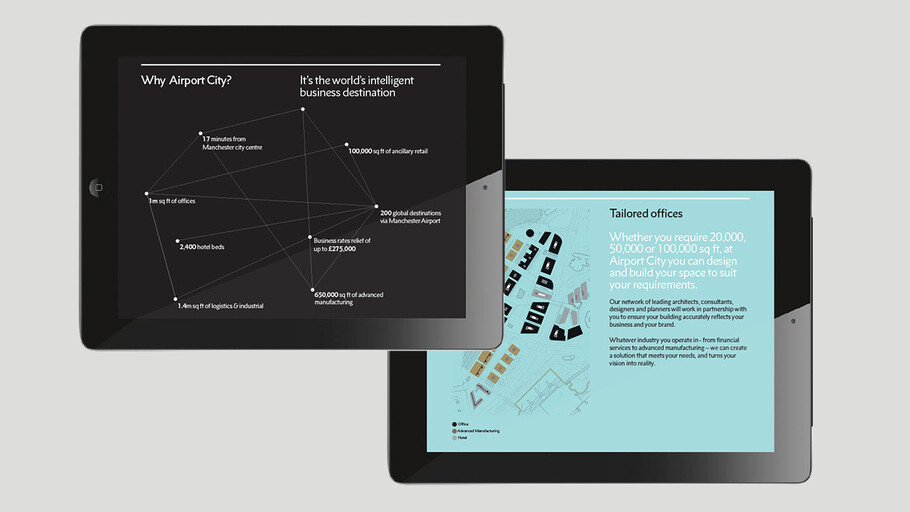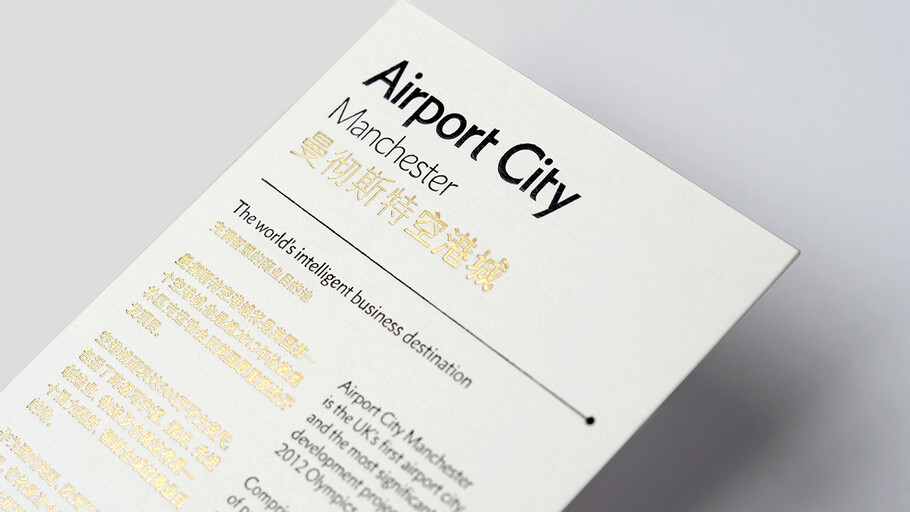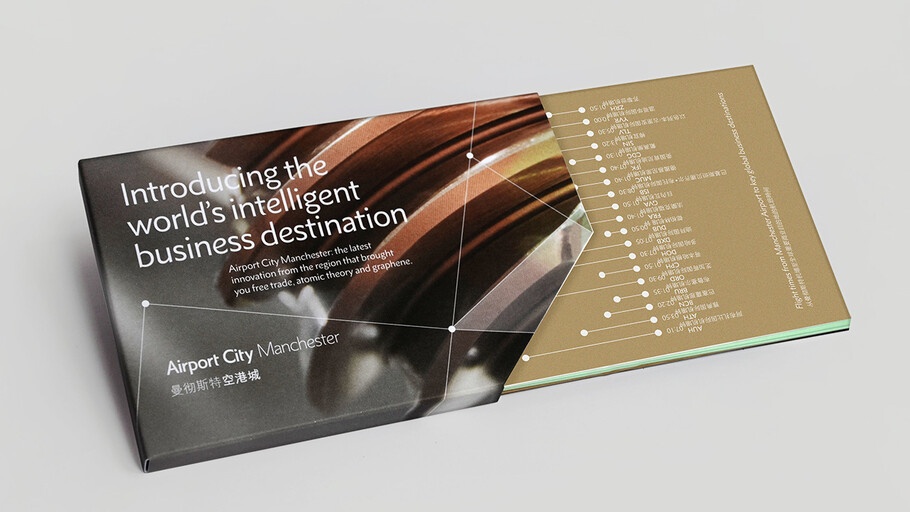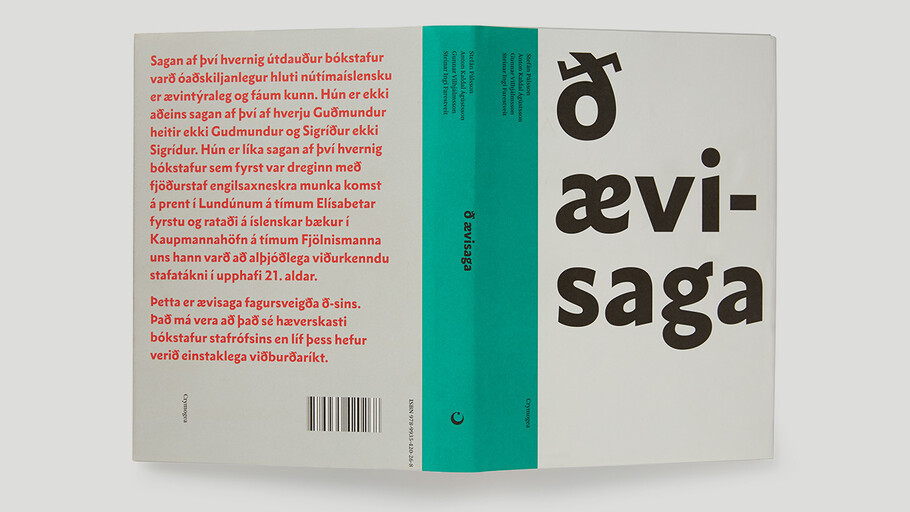
Metro Nova®
Modern versatility, classic design.
Rescued from obscurity by Doug Wilson, and restored by designer Toshi Omagari, Metro Nova distills the idiosyncrasies of Dwiggins’ Metro No. 1 into a new family that retains Metro’s inimitable sense of character, while still appealing to current design sensibilities. With seven regular weights, from thin to extra black, and six condensed weights, Metro Nova offers a contemporary take on a classic piece of design, updating the hand of Dwiggins’ for a new generation of designers.
Metro Nova comprises seven weights, from ultra thin to extra black in regular proportions, and six weights as condensed designs. Each has an italic counterpart for a total of 26 fonts.
Already a celebrated illustrator, calligrapher, book designer and writer, W. A. Dwiggins turned his hand to type design for the first time in 1929, with his Metro. No. 1 typeface. However, with the public’s hearts still set on geometric, modernist sans-serifs, Dwiggins’ first Metro design was eventually reborn as the much more popular Metro No.2.
With a focus on multilingual typography, Senior Type Designer Toshi Omagari has created fonts for several major brands and worked on some of Monotype’s most recent major type releases. He is a regular speaker at events like ATypI, sharing his experience and insights on multilingual type design.